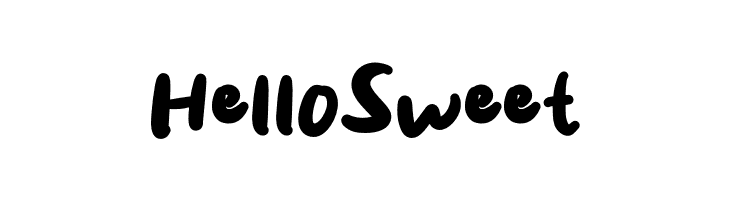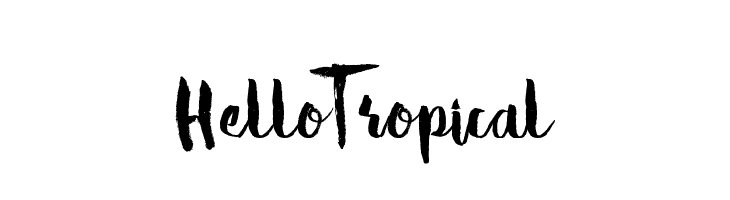
Playful, handwritten-style font with irregular strokes.
A bold, abstract font with thick, irregular strokes and a graffiti-like style.
A geometric and minimalist font with clean lines and a modern aesthetic.
A modern, geometric sans-serif font with a clean and balanced design.
A bold, classic serif font with strong, pronounced strokes.
A playful, hand-drawn font with rounded, irregular letterforms and a whimsical style.
A dynamic, expressive handwritten font with fluid strokes.
A bold, decorative font with gothic-inspired ornamental details.
A decorative script font with floral embellishments and elegant cursive style.